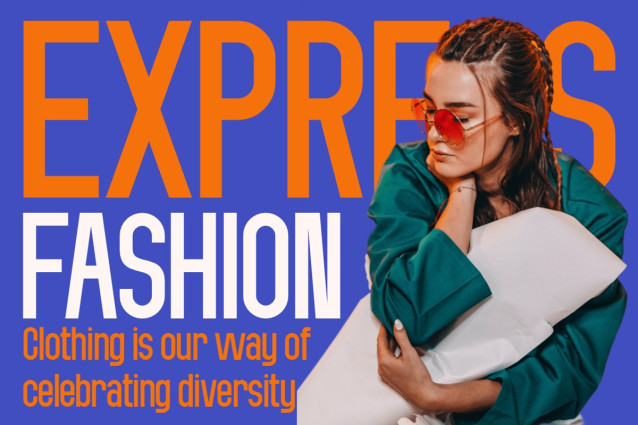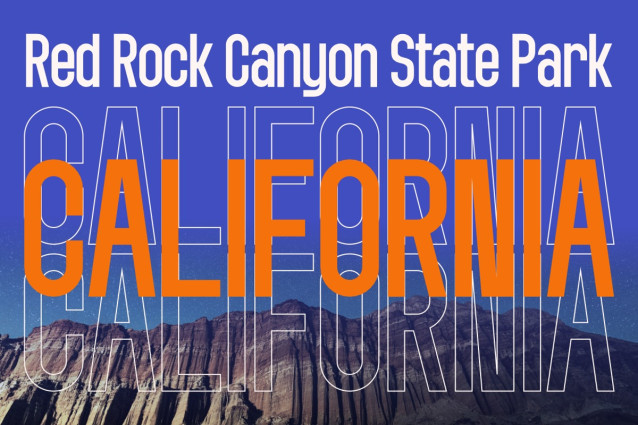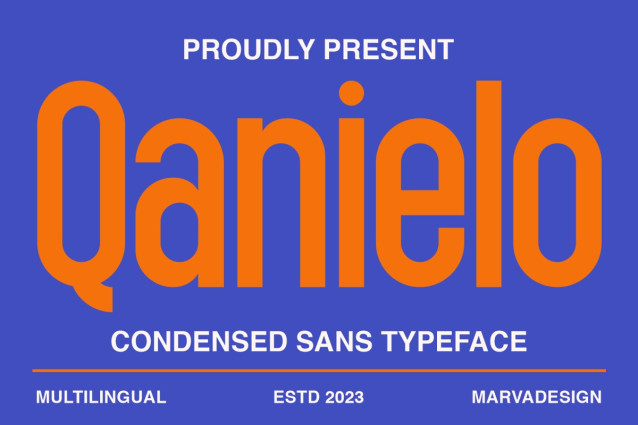
Qanielo Font
Qanielo Font – Modern Font is a bold and authentic display font. The font is suitable for any branding project like logo, Template Design, Product and many more. outstanding in a wide range of contexts.